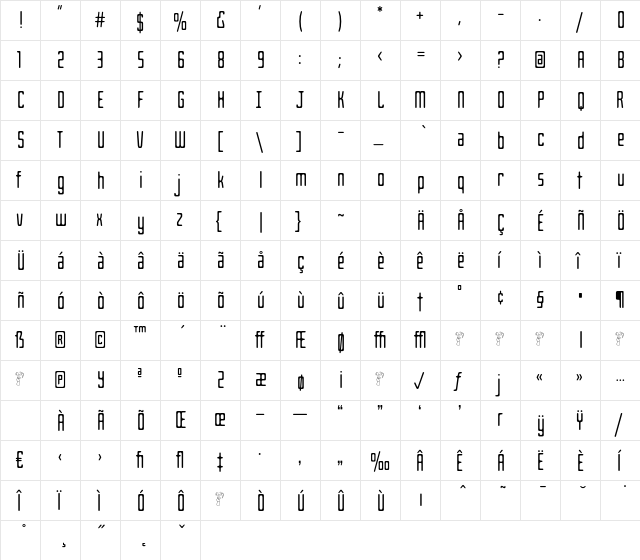
Gangly Regular Font Preview
Gangly Regular
Gangly Regular Font Details
Design Context for Gangly Typeface
Gangly offers clean, dependable letterforms without strong stylistic allegiance, making it a practical choice for designers who need flexibility.